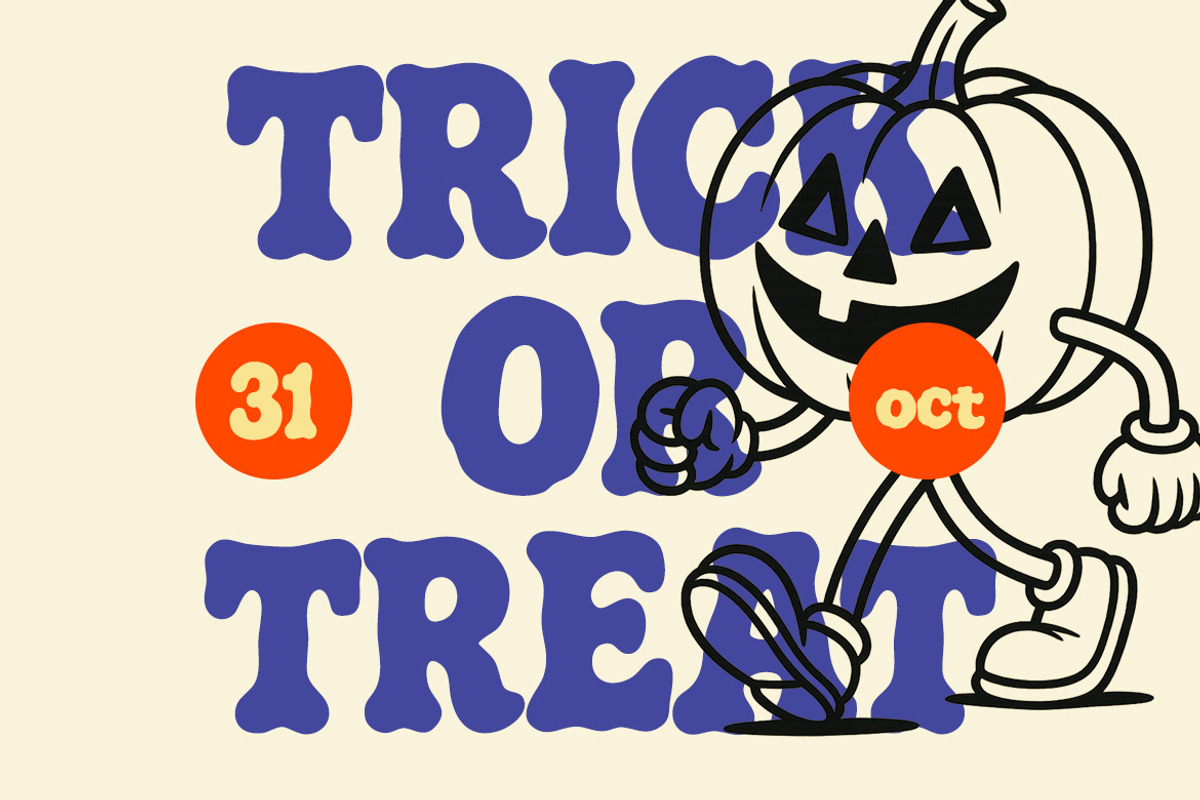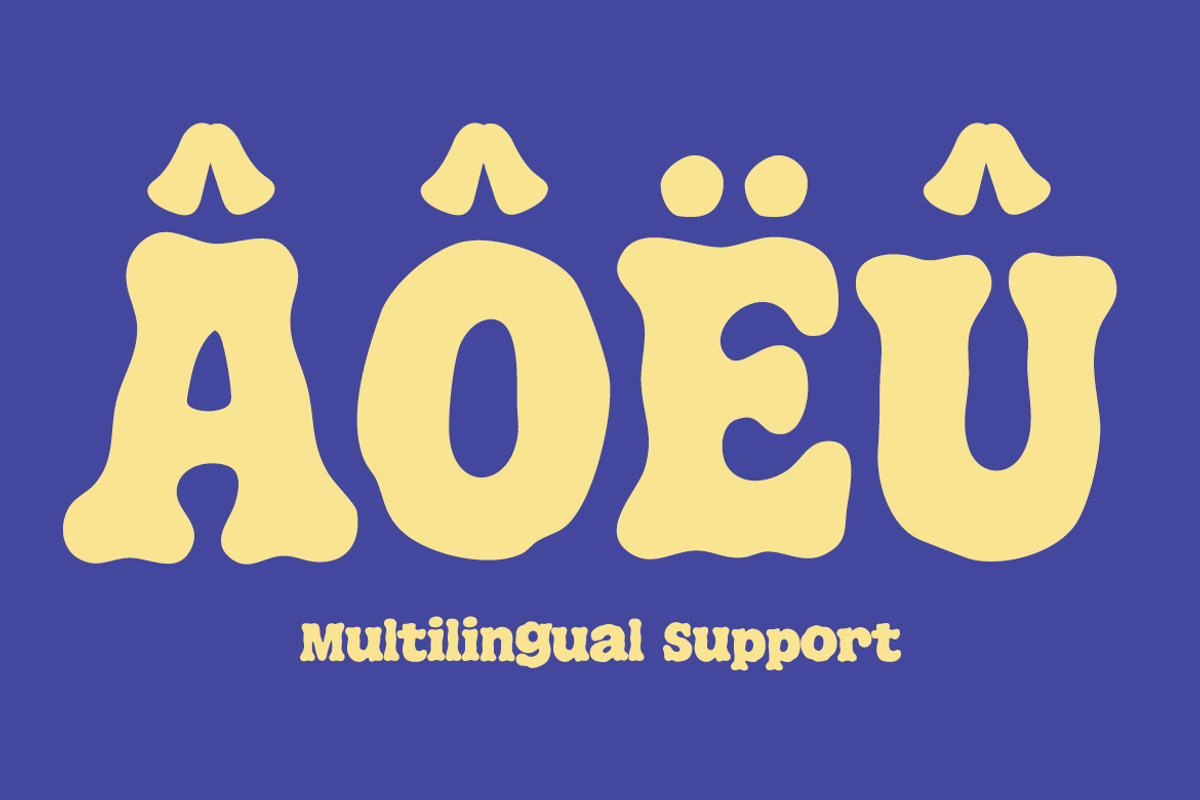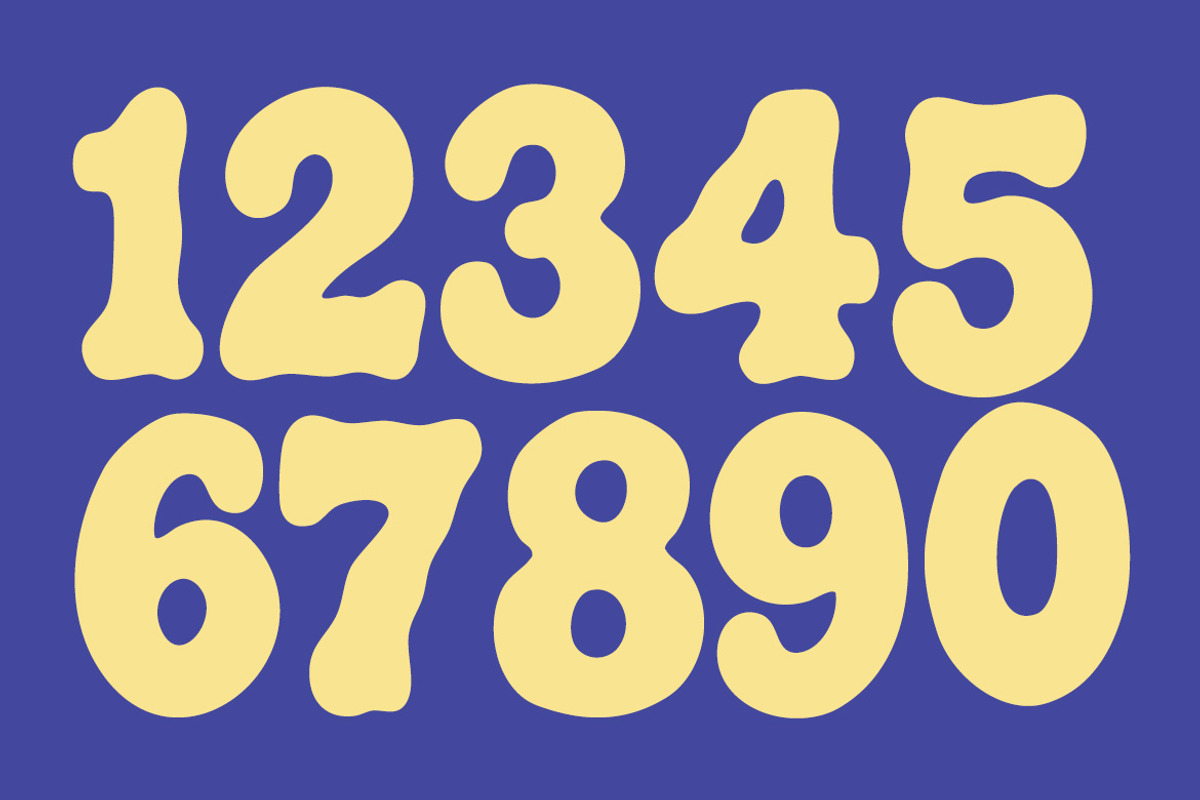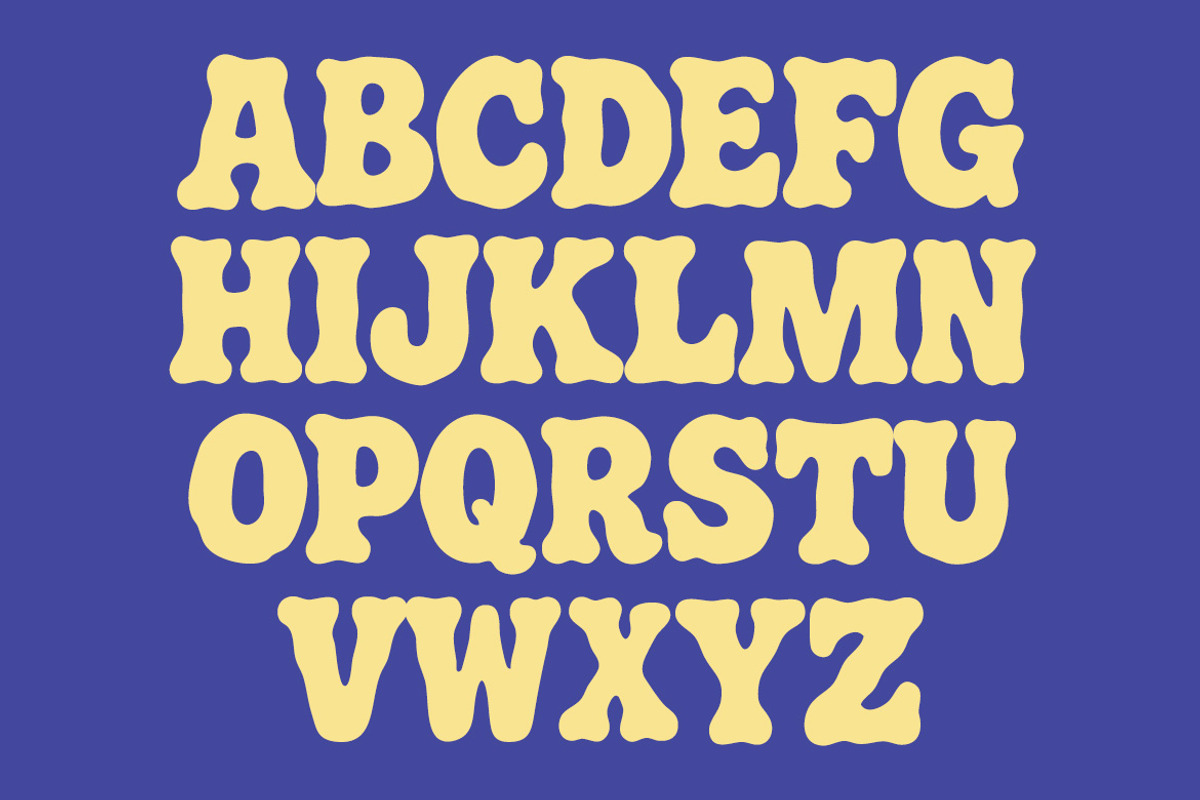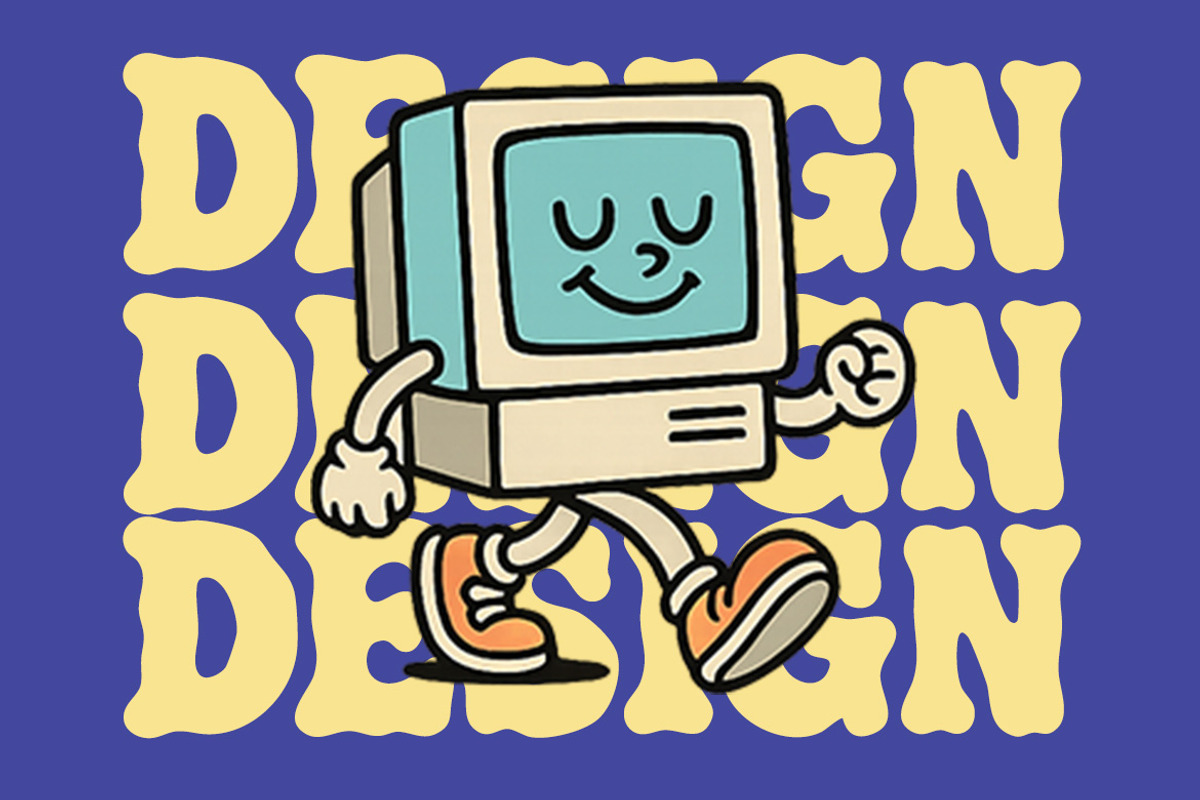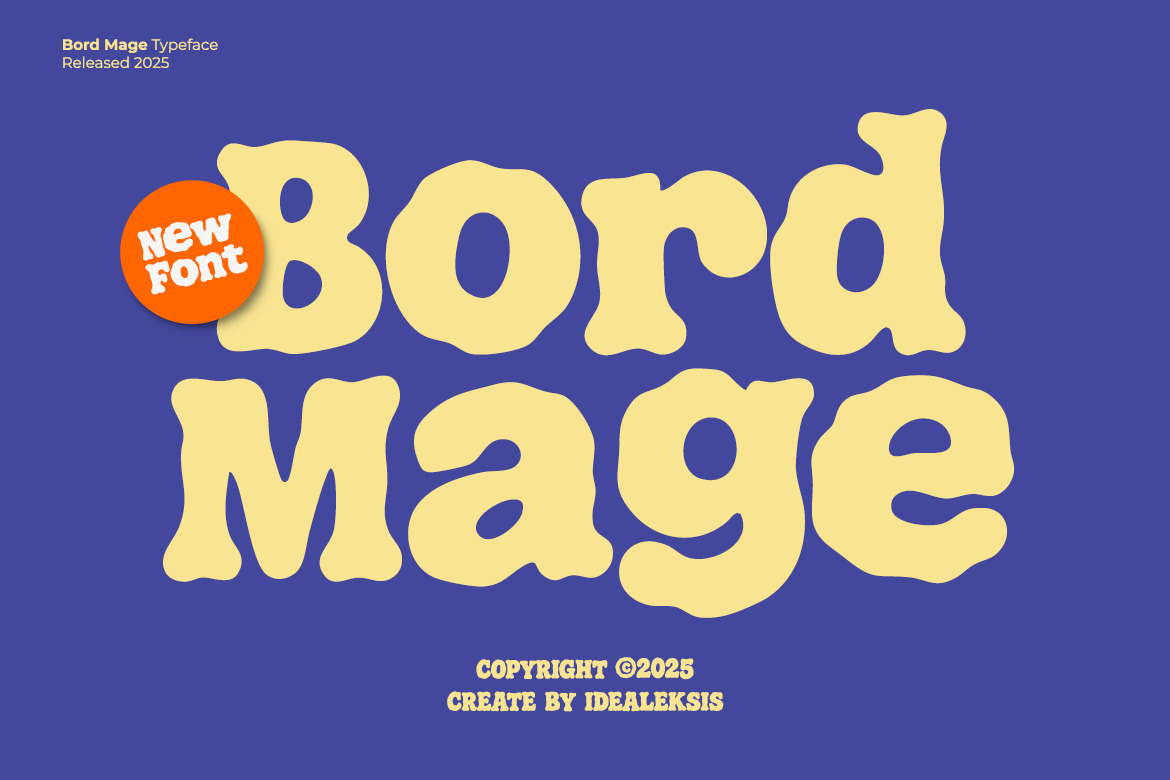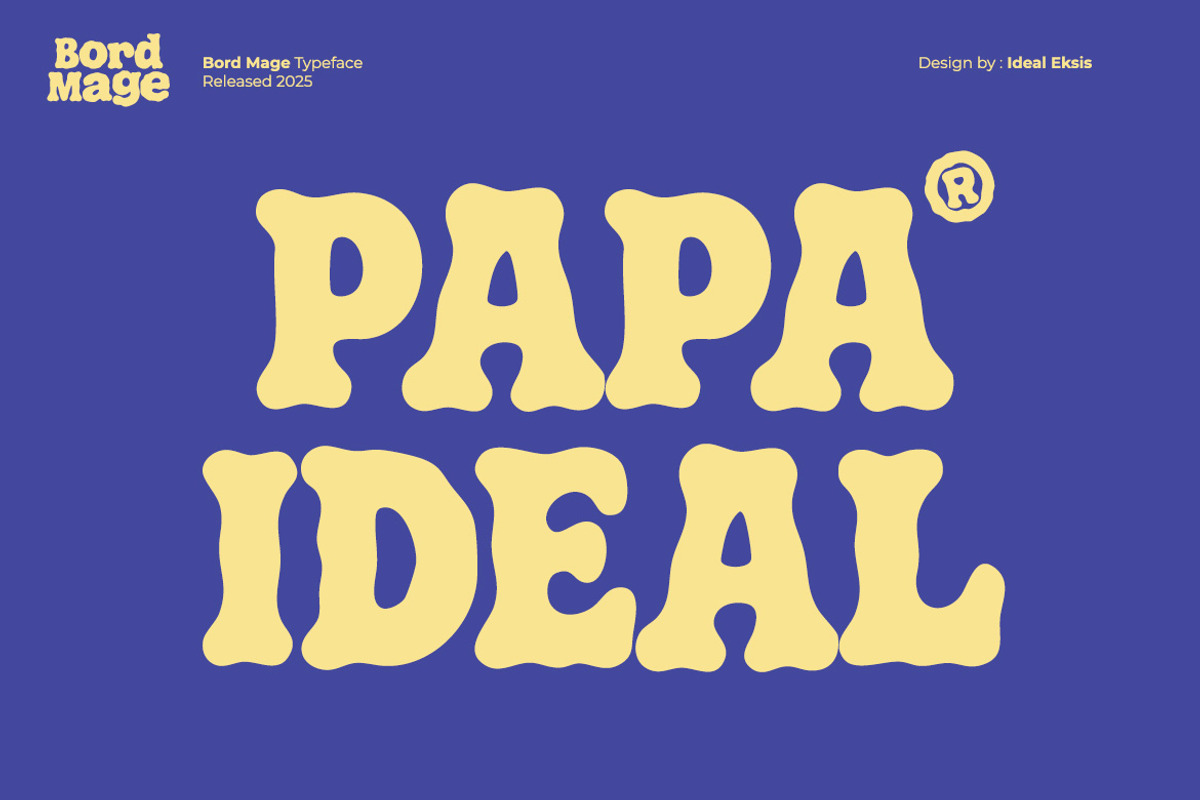
Bord Mage - Display Font
Bord Mage is a playful retro display font with bold, bubbly curves and a groovy vintage vibe. Perfect for posters, packaging, logos, social media graphics, and creative projects that want to capture a fun and nostalgic feeling.